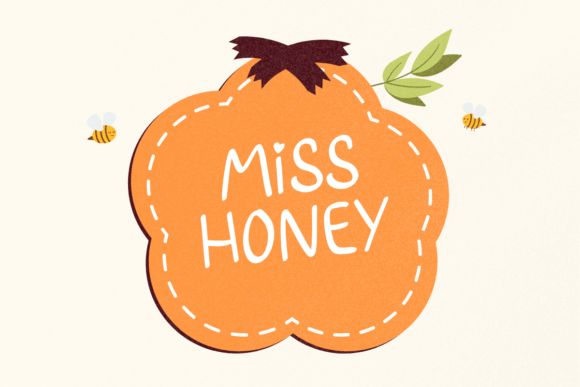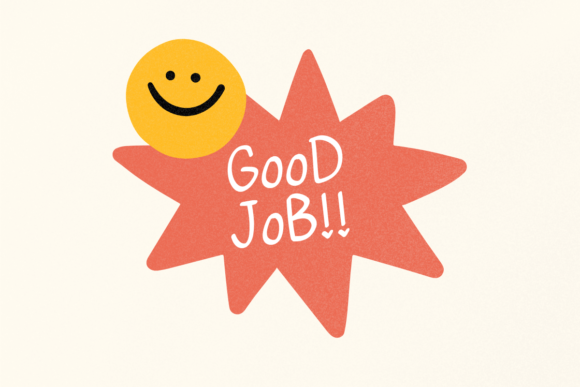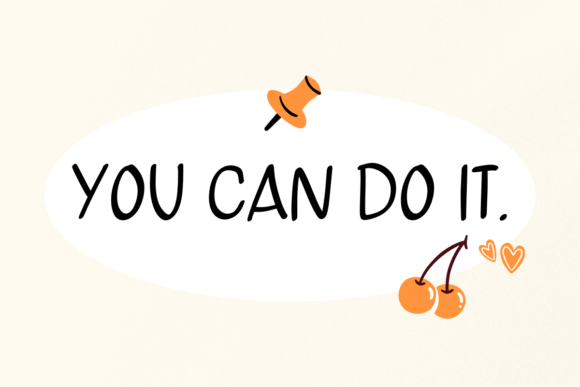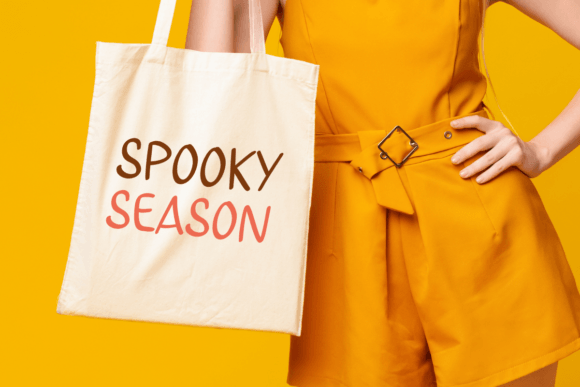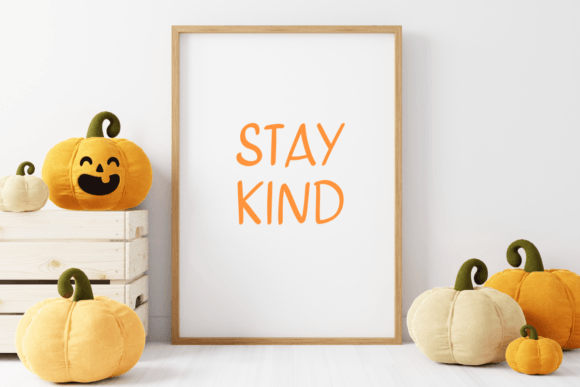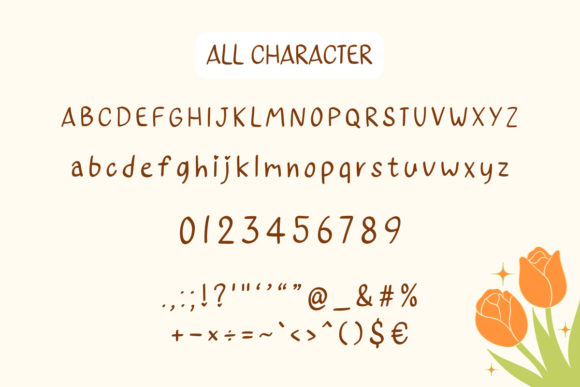
Introduction to My Daily Font
As a designer, I still remember the moment I stumbled upon the perfect font for a kids’ craft project – it was My Daily Font. The simple yet charming handwriting style instantly caught my attention, and I knew I had to give it a try. With a free download available, I was excited to see how this high-quality font could elevate my creative project.
As I started working with My Daily Font, I realized its versatility and potential to become the centerpiece of my design. Whether it’s a greeting card, a teacher’s worksheet, or a craft project, this font adds a personal touch that’s hard to find with other design resources. And with a transparent background, I can easily customize it to fit my design needs.
For designers like myself, My Daily Font is a valuable resource that can breathe new life into our creative projects. Its unique charm and simplicity make it an excellent addition to any design library, and its free download makes it accessible to everyone.
Key Features of My Daily Font
- High-quality vector design with transparent background for seamless integration in any creative project.
- Unique, hand-crafted design with intricate details and subtle textures, setting it apart from generic fonts.
- Supports a wide range of languages, making it suitable for international creative projects.
Honest Review: My Daily Font
As a designer, I’m always on the lookout for high-quality design resources to elevate my creative projects. My Daily Font caught my attention with its sleek, modern aesthetic and transparent background, making it perfect for adding a touch of sophistication to any design.
- ✨ Highly legible and easy to read, even at small font sizes.
- ✨ Versatile and suitable for a wide range of creative projects, from branding to digital products.
However, I do have a few minor quibbles:
- ⚠️ Limited font weights and styles, which may not be ideal for designers who require a wider range of options.
- ⚠️ Not ideal for use as a headline font, as it may get lost in larger text.
Overall, My Daily Font is a solid addition to any designer’s toolkit. Its high-quality design and transparent background make it a great choice for adding a touch of elegance to any creative project. While it may have some limitations, I’d highly recommend it as a free download for designers looking to add some sophistication to their designs.
– Use My Daily Font to add a touch of elegance to your presentations and documents.
Experiment with different font sizes, colors, and combinations to achieve the perfect look for your project.
My Daily Font is ideal for:
- Creating eye-catching social media graphics
- Designing beautiful wedding invitations and stationery
- Developing professional presentations and reports